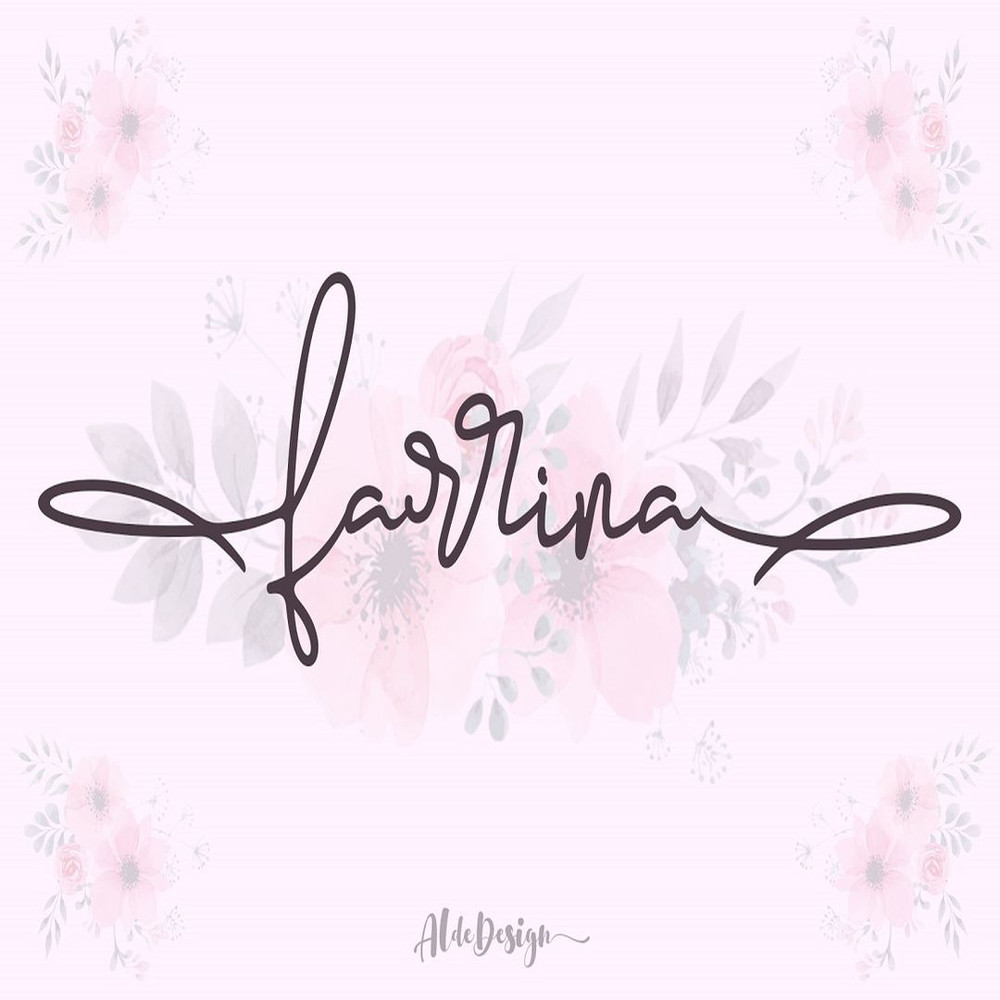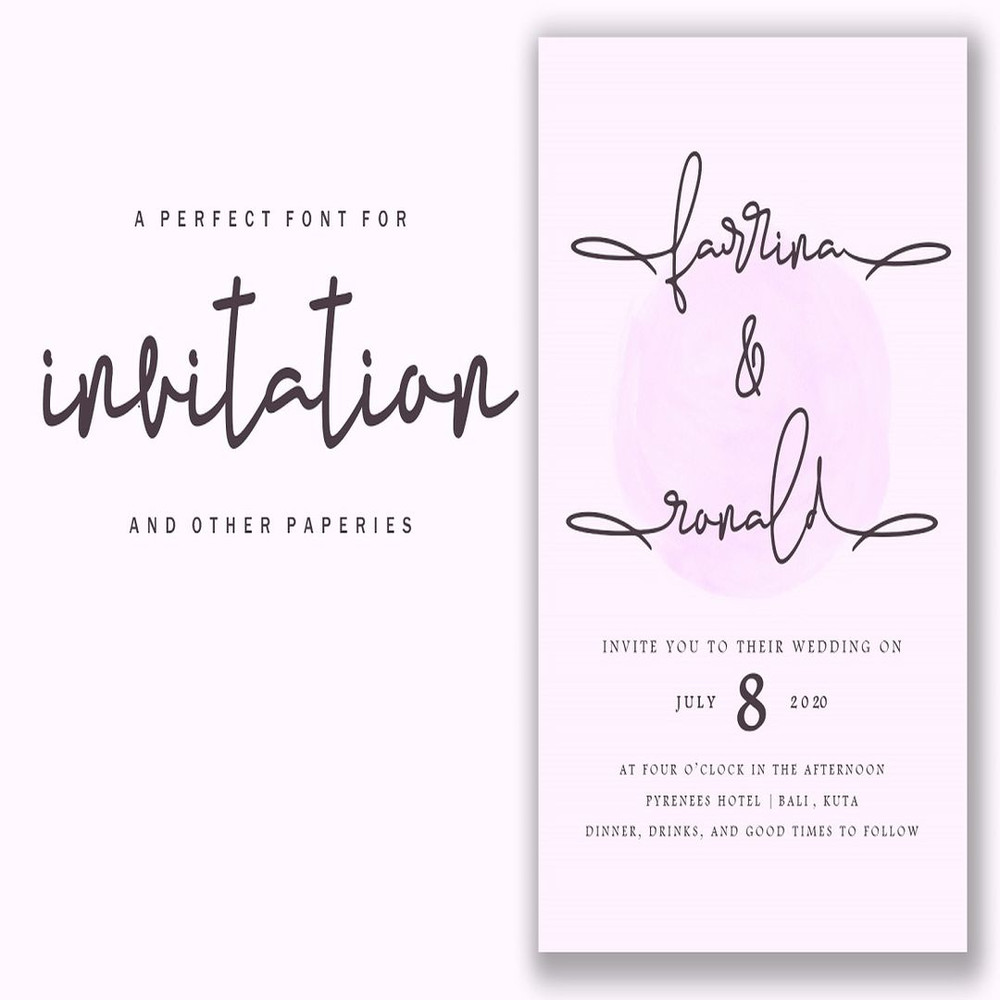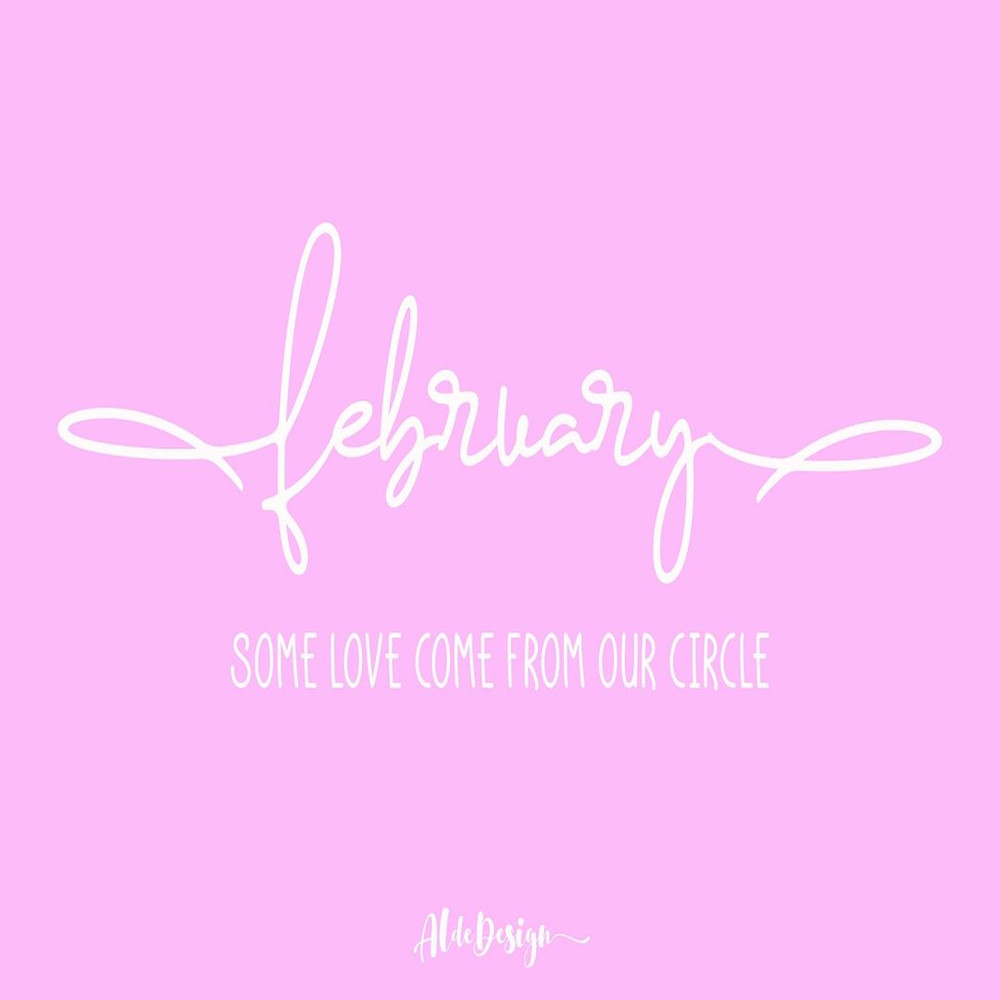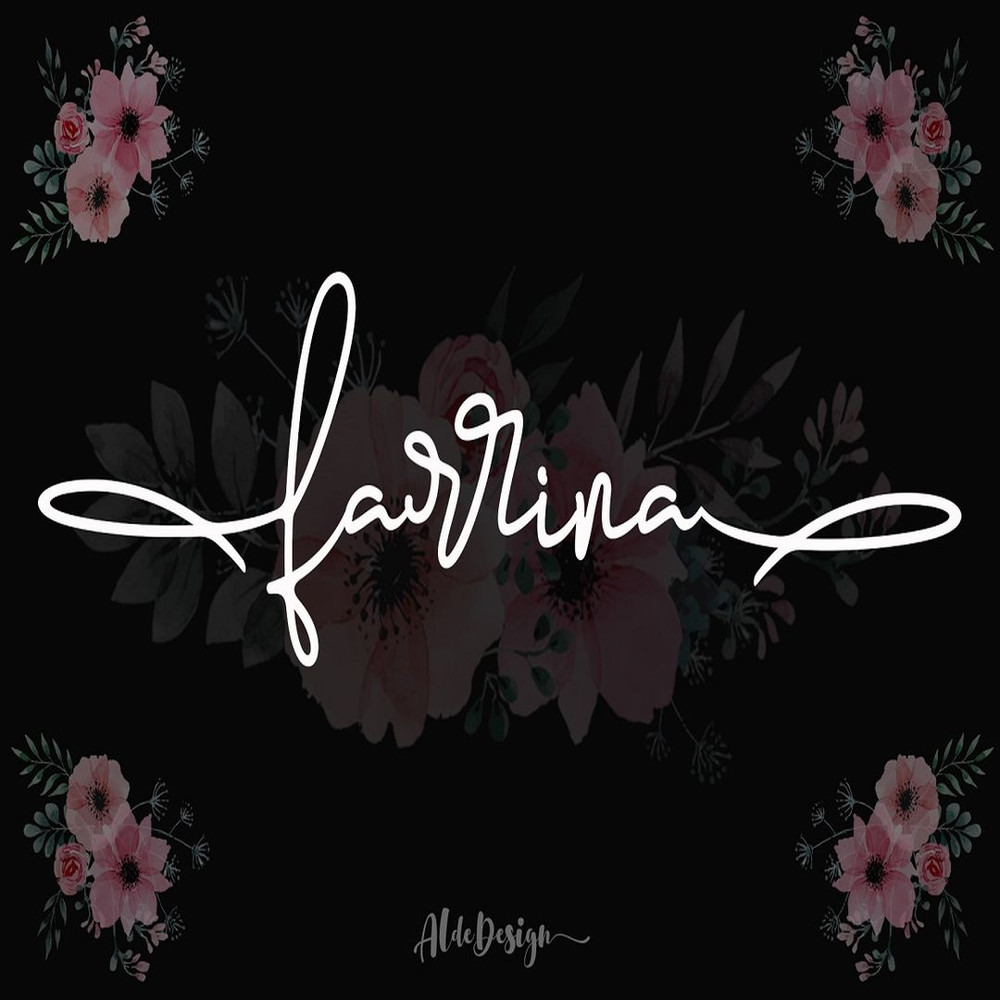
Farrina Script
Just imagine that your customers are women. They love to see something beautiful, elegant, and warm, right? You don’t need to get confused to find an interesting font to attract their attention. I have a special font namely “Farrina”. The font design looks simple without losing its elegance and warmness. The function of the font is to show that you have a modern spirit to serve high-quality products and services. I design this font with OpenType features to give an artistic touch on it. This font is also applicable for numbers, punctuation, and other languages. It is also a multifunction font where you can use for a business logo, branding, wedding invitation, and anything you want.